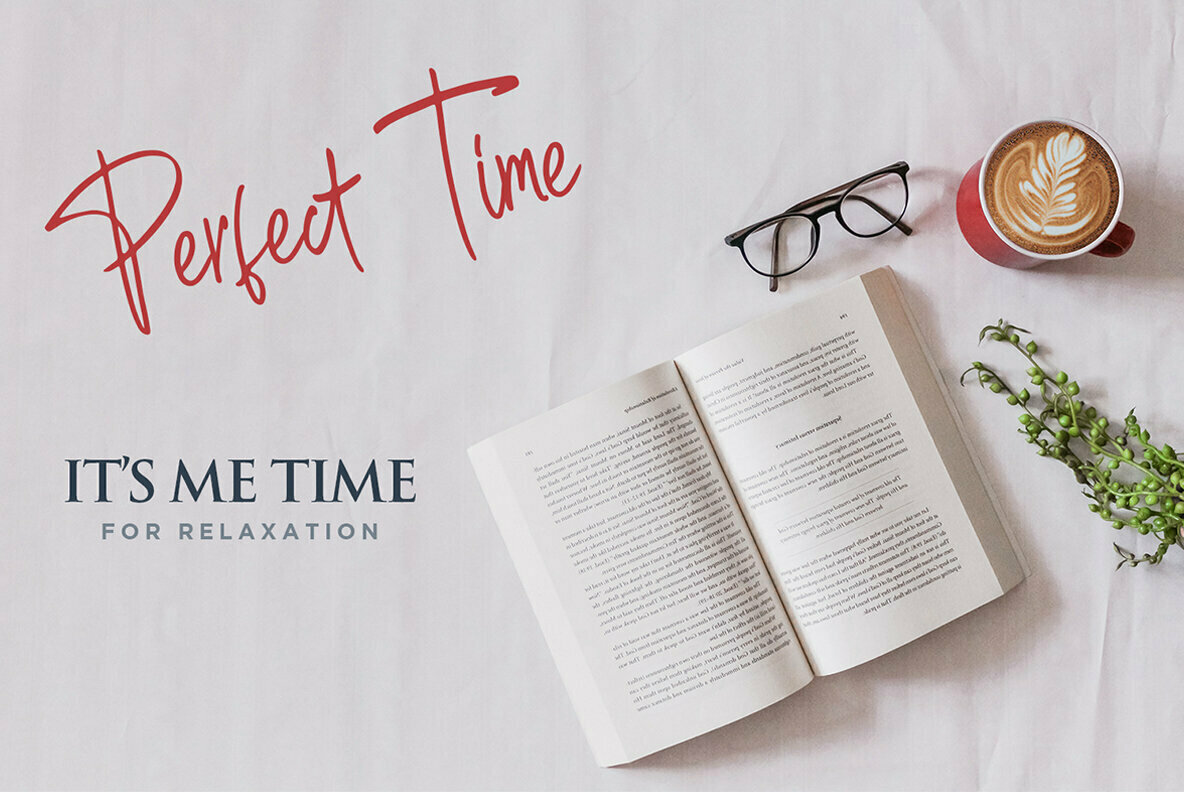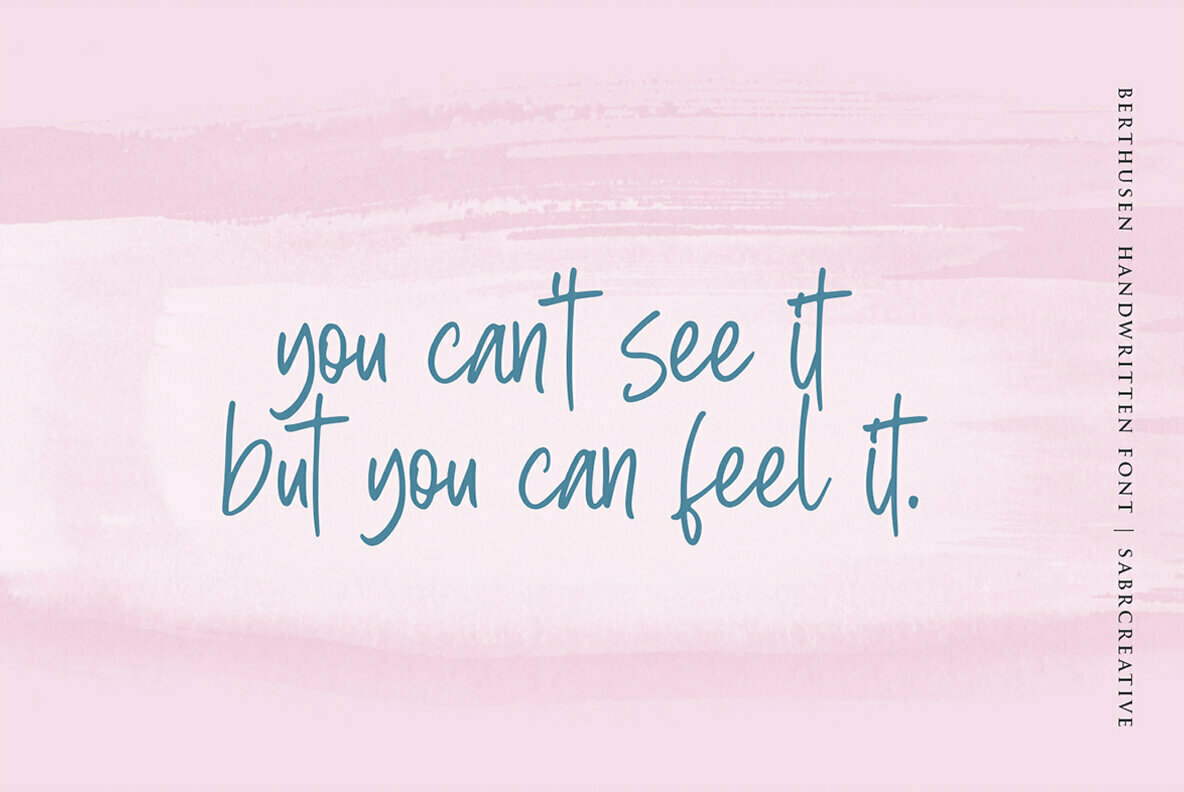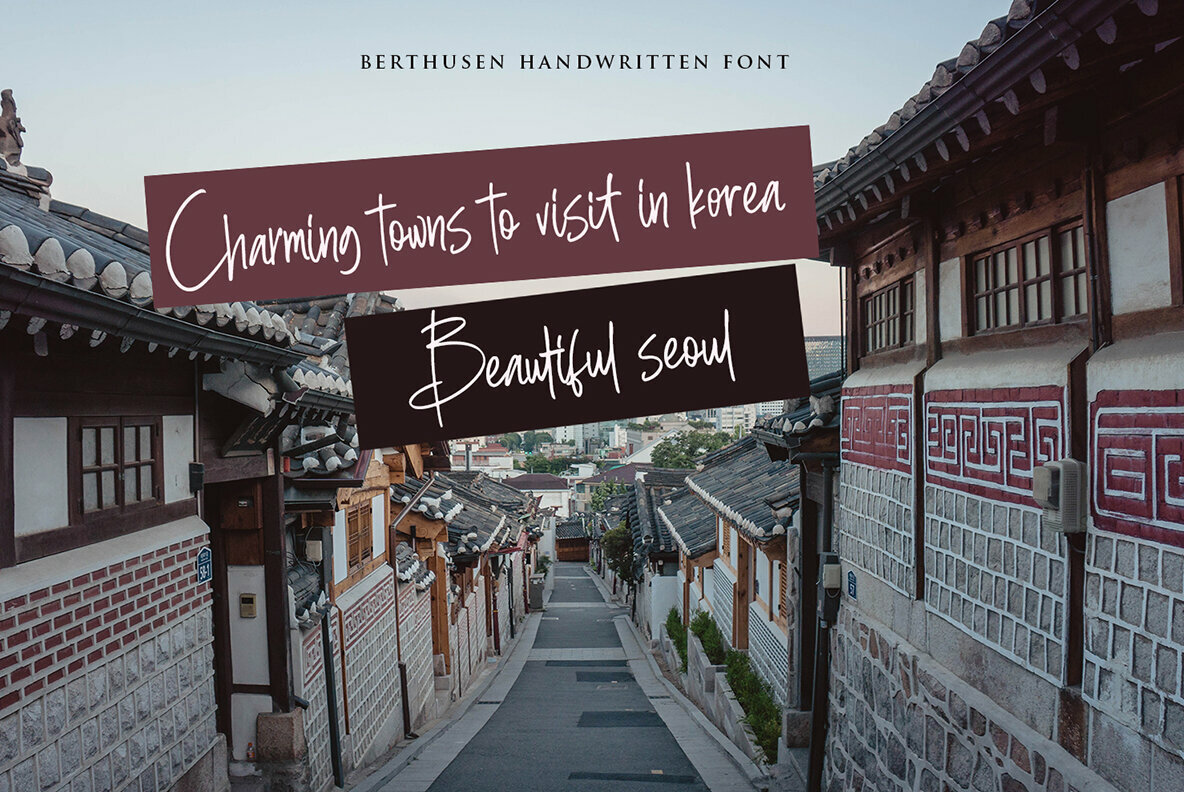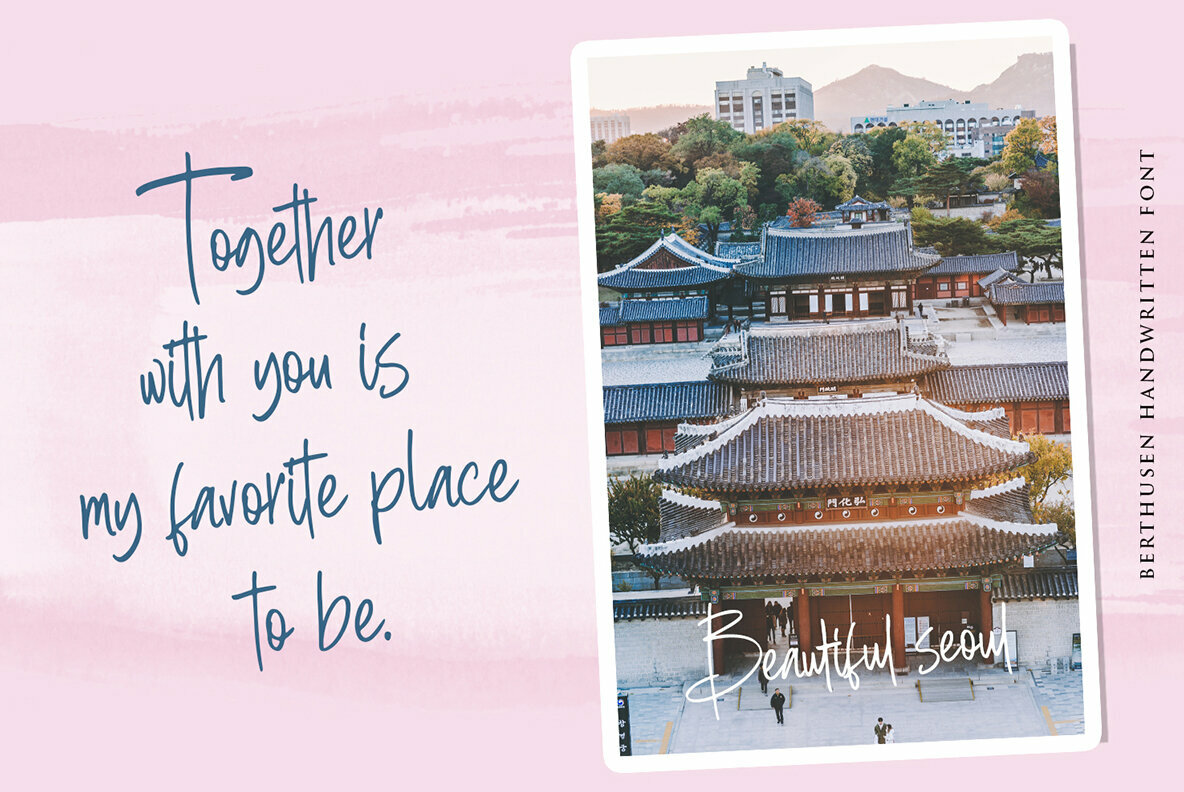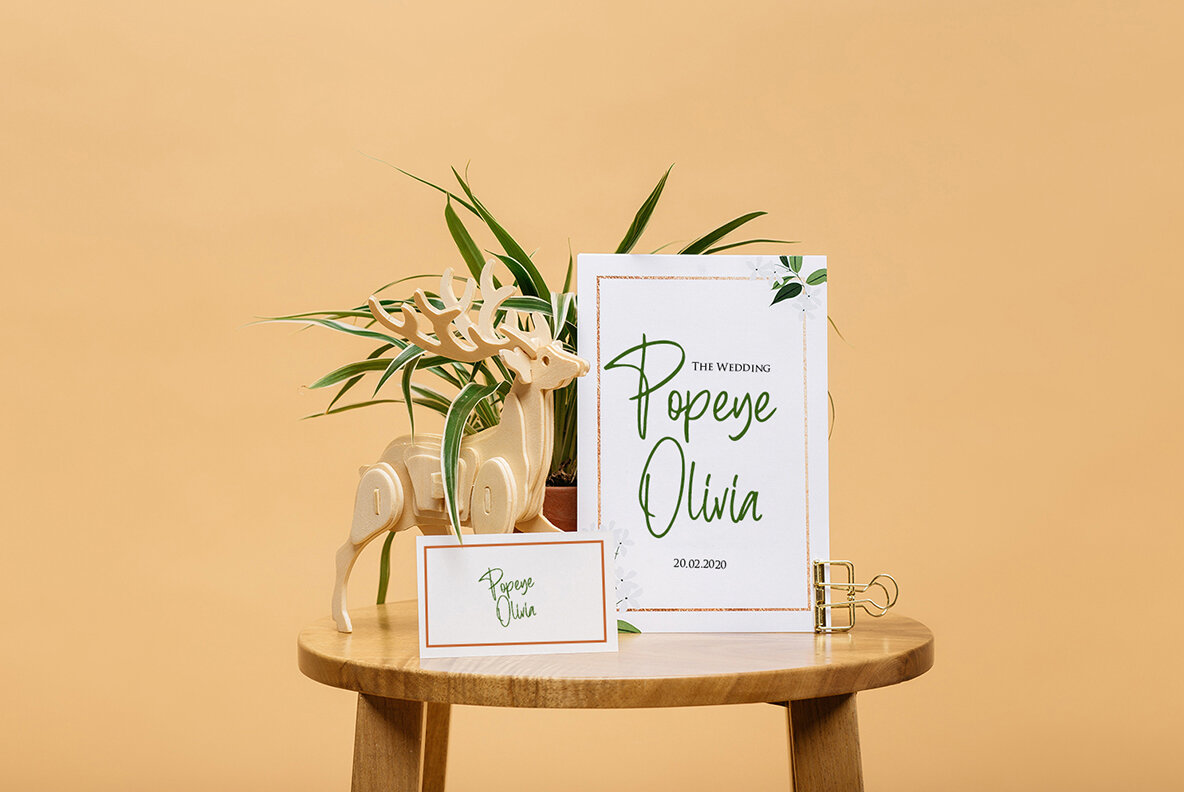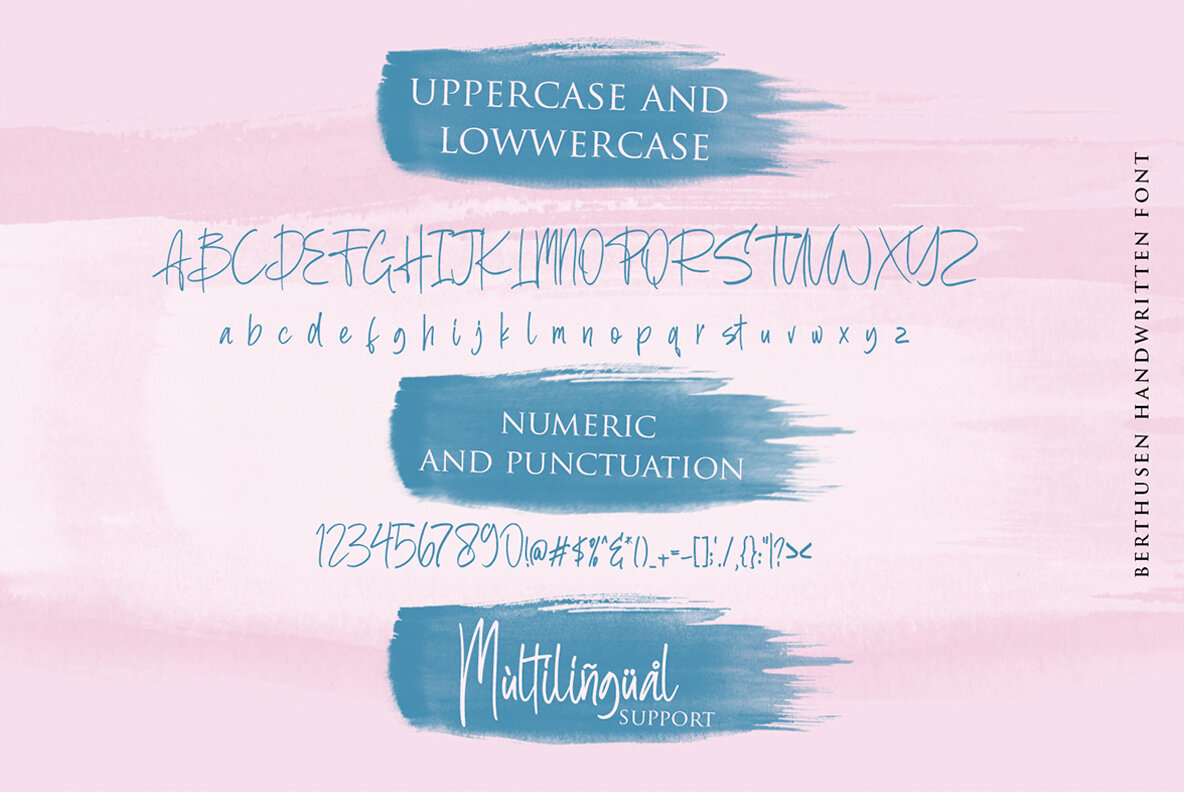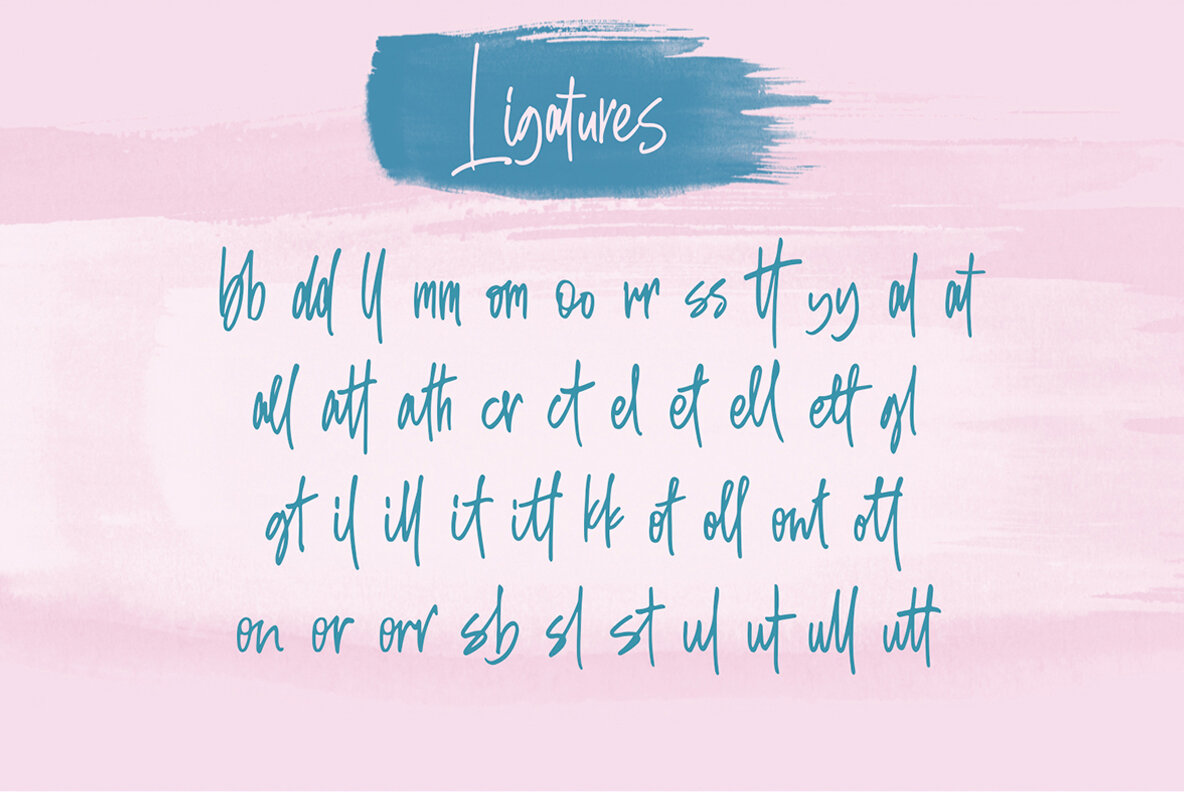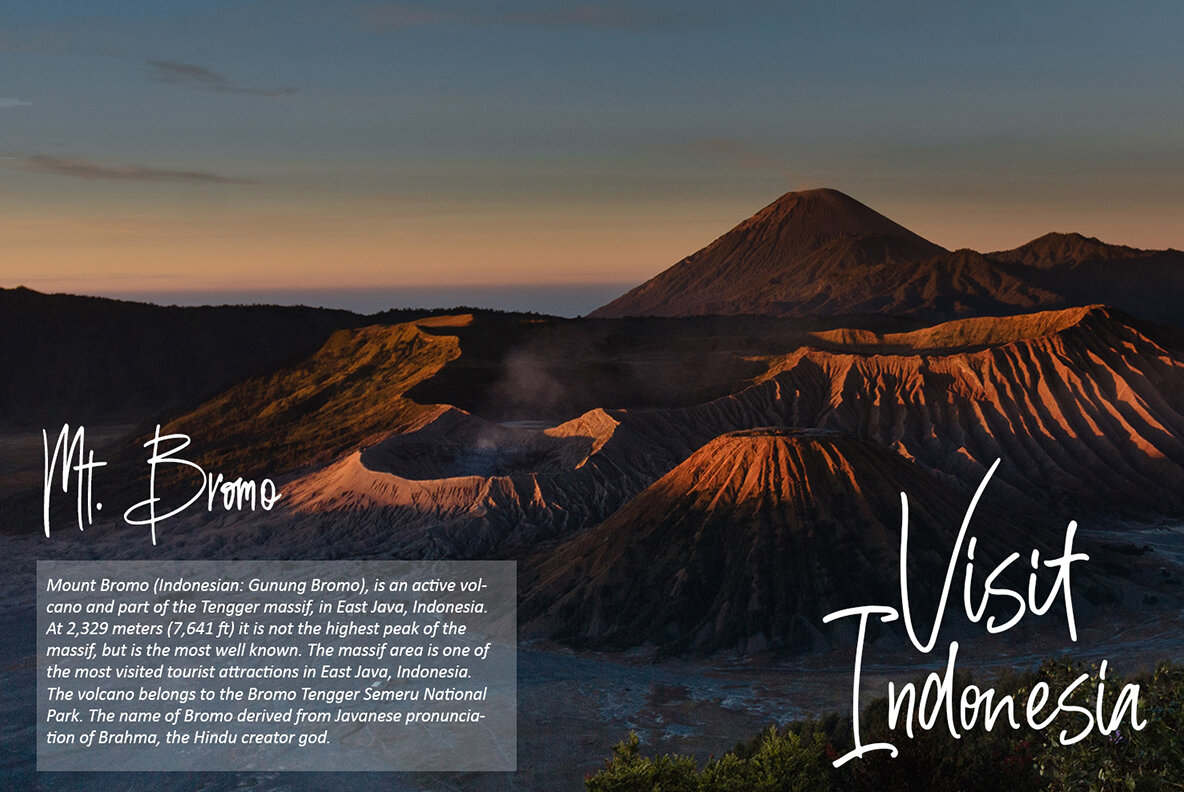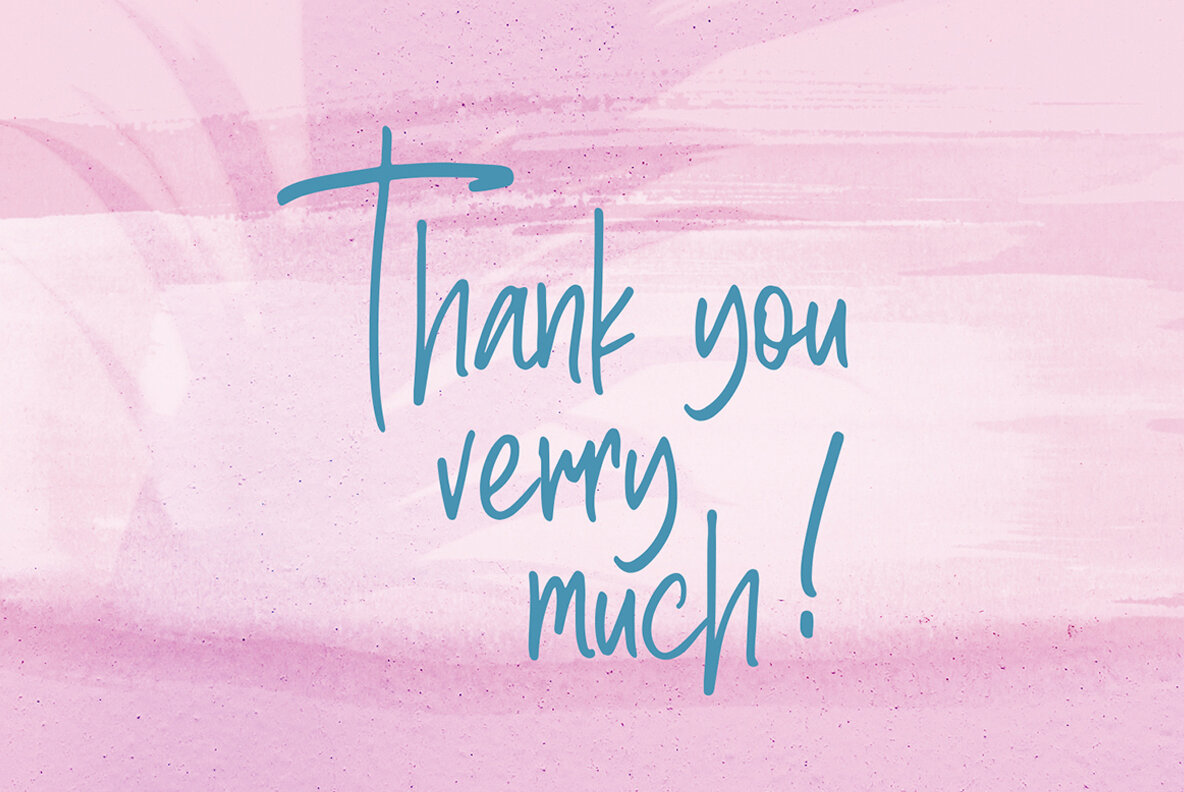
Berthusen Font
Berthusen
Berthusen by Sabrtype Studio is an exquisite font that encapsulates the grace of natural handwriting. This distinctive typeface is the perfect addition to a multitude of projects, including logos, branding, and an array of stationery items. Its versatility also makes it ideal for creative endeavors such as wedding designs, social media content, and advertisements. With its delightful flair, Berthusen extends its utility to product packaging, posters, and more, making it a go-to choice for designers seeking authenticity. The font shines with elegance in photographic watermarks, special event materials, and fashion-related designs. Its adaptable nature ensures it fits seamlessly into diverse applications, from quotes to product labels, satisfying the creative needs of a contemporary designer's portfolio.Berthusen: A Natural Handwriting Typeface